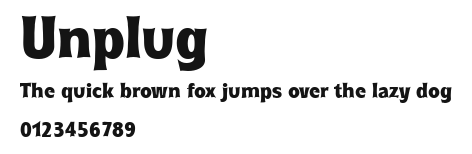
Unplug Preview
• Font Name: Unplug
• Full Font Name: Unplug Regular
• PostScript Name: Unplug
About Unplug.ttf
Unplug.ttf is a modern, elegant sans-serif font designed for ultimate readability and visual harmony. Perfect for branding, headlines, web design, and print materials.